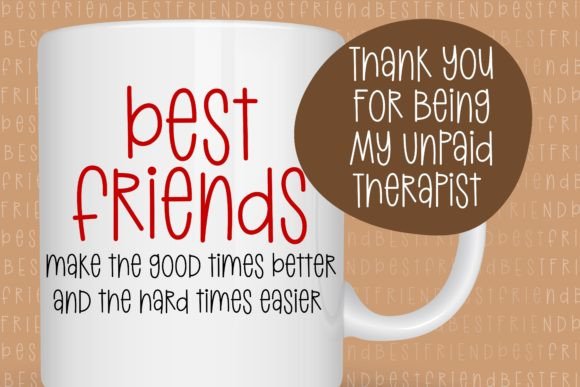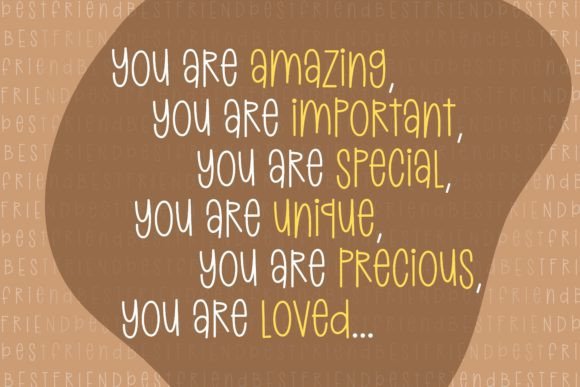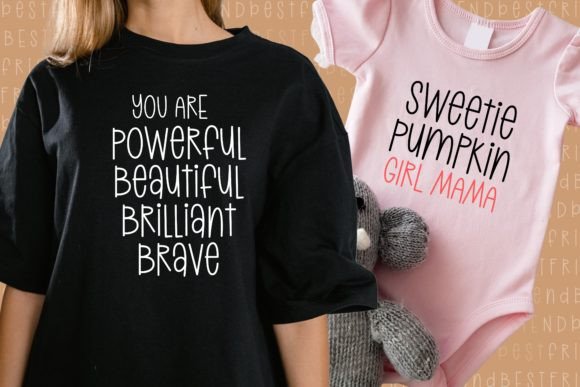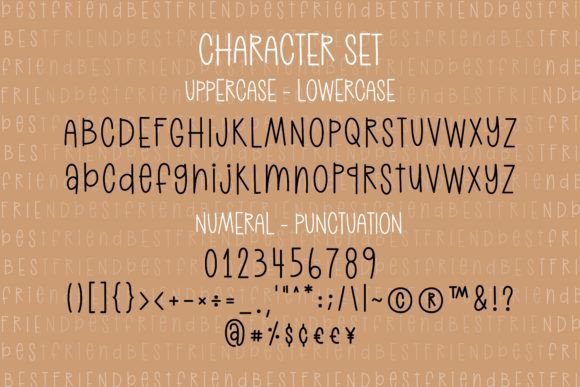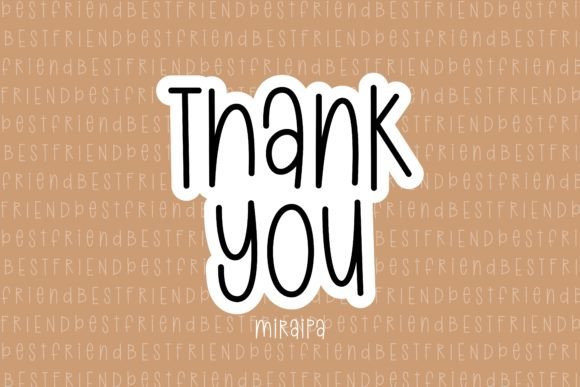
Have you ever been brainstorming a creative project, flipping through fonts, and then – suddenly – a smile spreads across your face as you stumble upon the perfect match? That’s exactly what happened when designers discovered the Best Friend Font, a delightful sans serif typeface that’s equal parts charming and quirky.
This adorable font is designed to bring a friendly touch to any project, making it perfect for Easter invitations, back-to-school planners, wedding decorations, and even social media posts. Whether you’re a seasoned designer or a DIY enthusiast, the Best Friend Font is sure to add a playful twist to your creations, making them stand out from the crowd.
Best Friend Font Key Features
- Font Family: Best Friend Font is a sans-serif font designed specifically for digital use.
- Unique Characteristics: Best Friend Font features a friendly, approachable feel with a subtle rounded edge, making it perfect for body text and titles.
Best Friend Font Review
Overall, I’d say the Best Friend Font is a solid, yet unremarkable choice for a sans-serif font family. Here are some of its notable features:
- ✨ Beautifully crafted letterforms that evoke a sense of warmth and friendliness
- ✨ Suitable for body text and display purposes, making it a versatile choice
- ✨ Supports a wide range of languages, including Latin, Greek, and Cyrillic scripts
- ✨ Available in a range of weights, from Light to Bold, offering flexibility in design
However, there are some limitations that might make it less appealing to some designers:
- ⚠️ The font may not be suitable for highly technical or academic content, as the letterforms can appear slightly informal
- ⚠️ The font family is not particularly distinctive or memorable, which may make it harder to establish a strong brand identity
- ⚠️ Some users may find the font to be too playful or cursive-like, which can be a turn-off for more serious or corporate designs
Overall, I’d recommend the Best Friend Font for projects that require a friendly, approachable tone, such as blogs, social media, or lifestyle brands. However, for more formal or technical projects, you may want to consider other font options.
For the most effective use of the Best Friend Font, keep the following tips in mind:
- Use it for titles and headings to add a touch of personality.
- Pair it with other playful fonts for a unique look.
The Best Friend Font is perfect for:
- Social media graphics and posts.
- Blog and website titles.
- Party invitations and decorations.
Alternatives to Best Friend Font